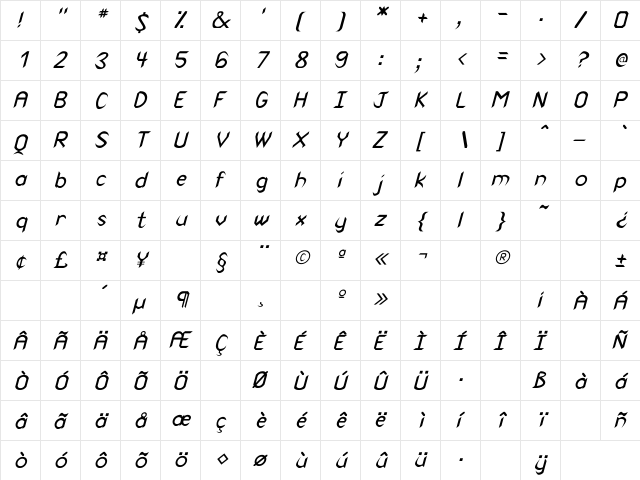
Rscanaith italic Italic
Design Context for Rscanaith italic Typeface
Rscanaith italic takes a measured approach to typography — its balanced proportions and neutral character make it a reliable workhorse for both digital and print work. The slanted form adds forward momentum and visual energy.
Pro Tip: Try Rscanaith italic for annotation and caption copy alongside an upright companion — the contrast in angle creates a dynamic but ordered typographic system.